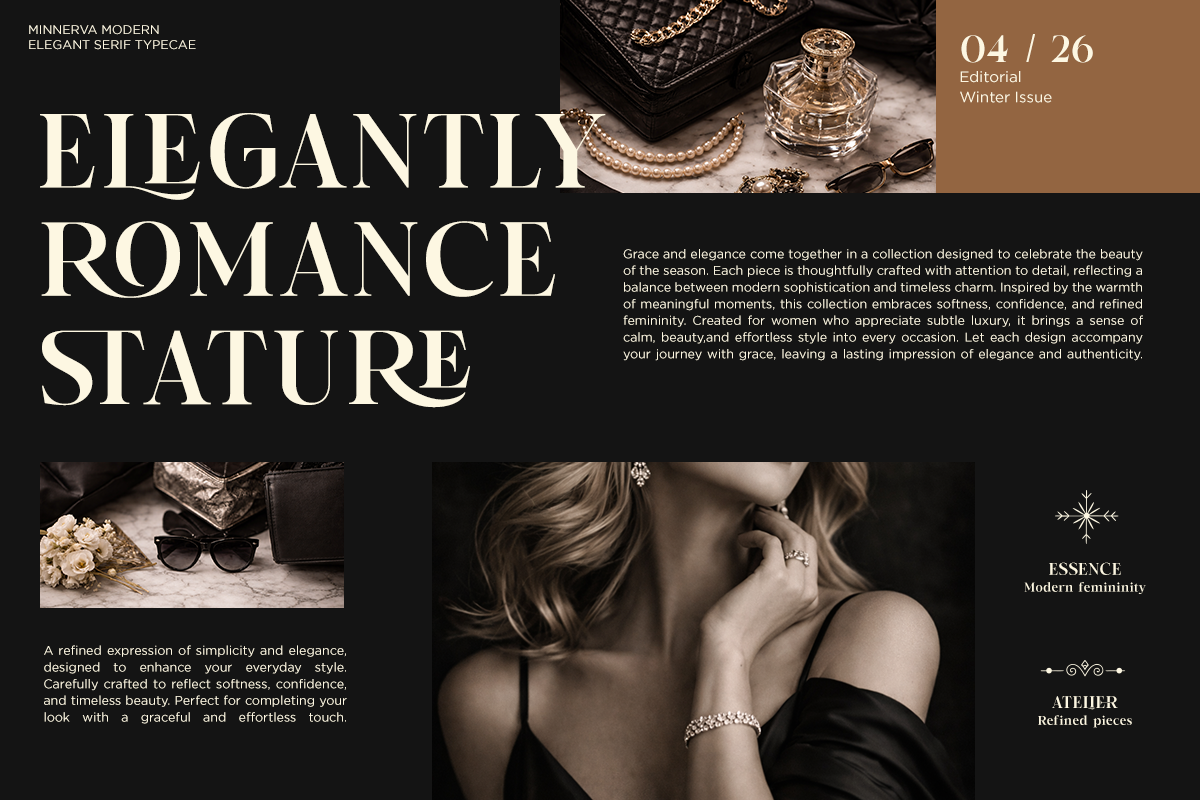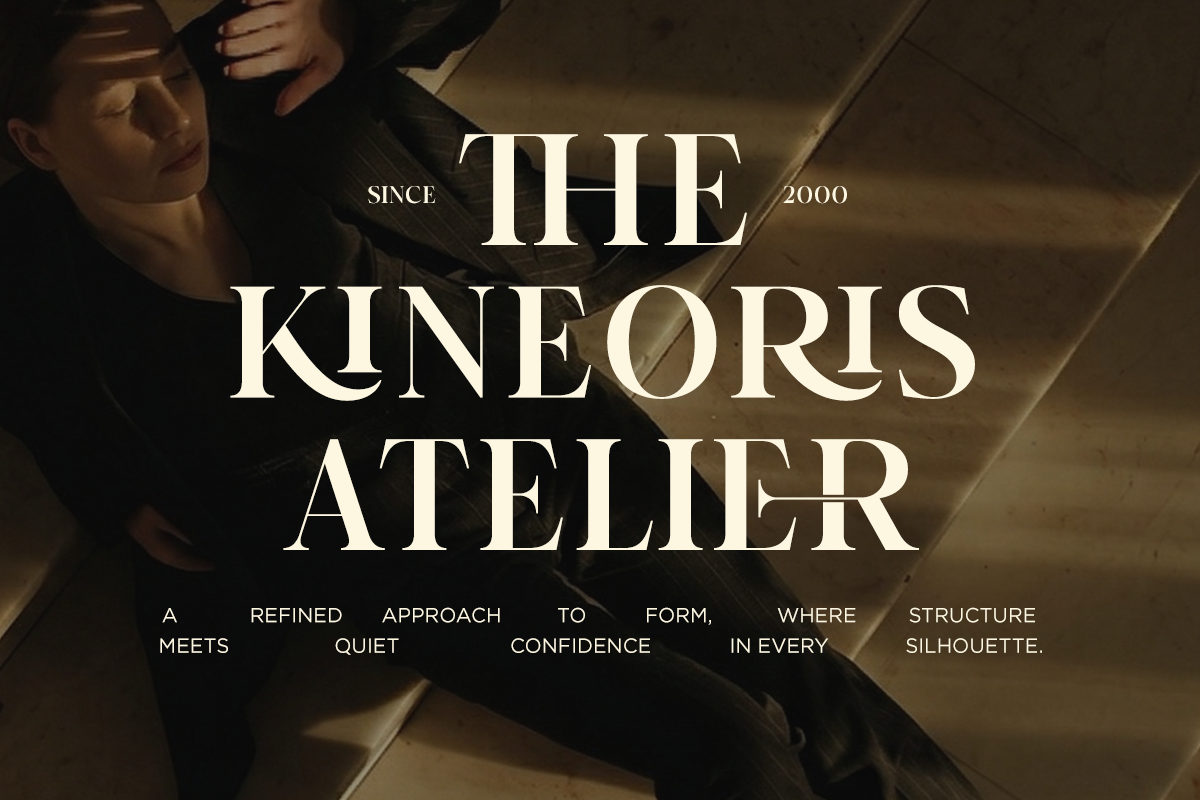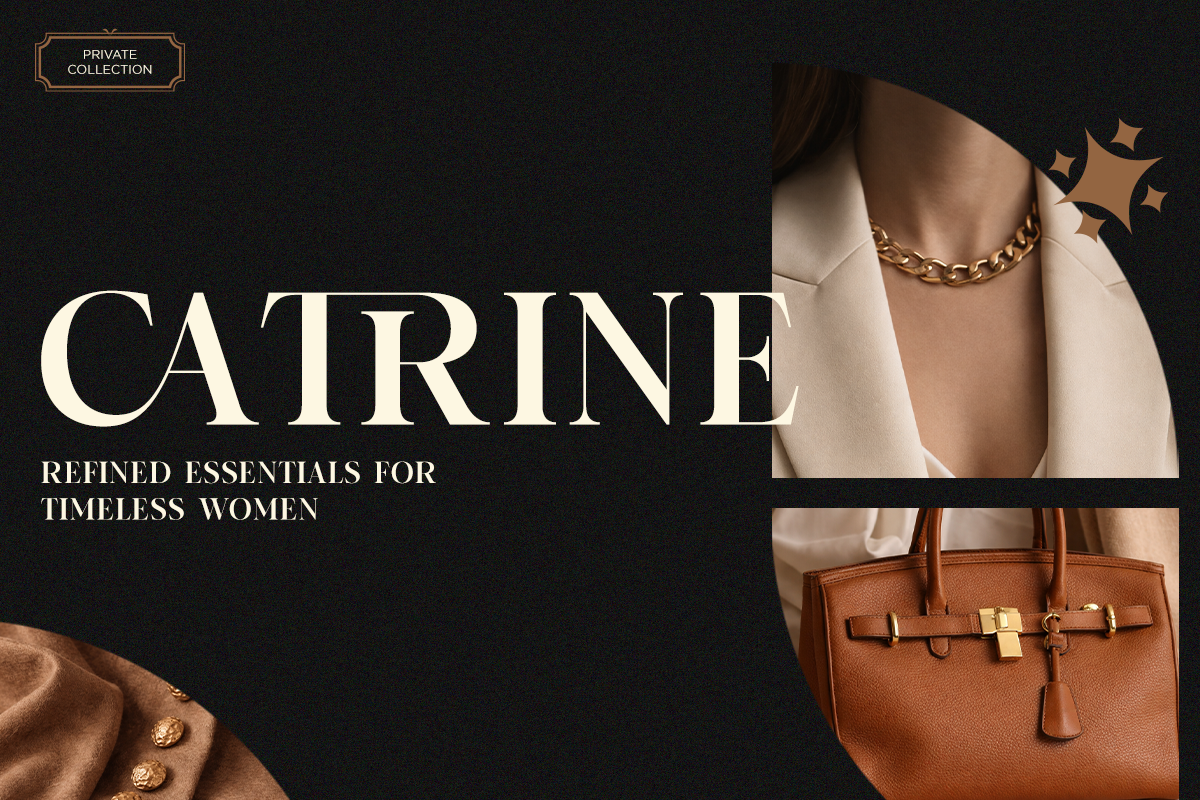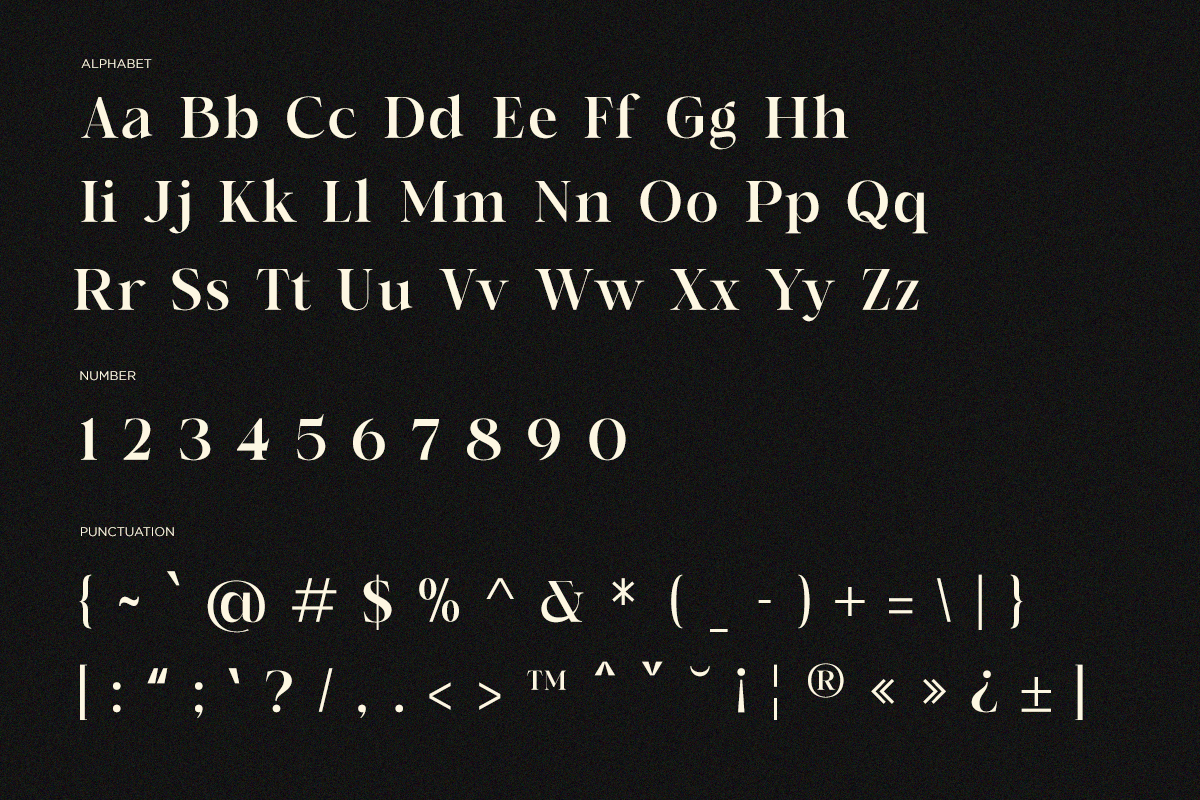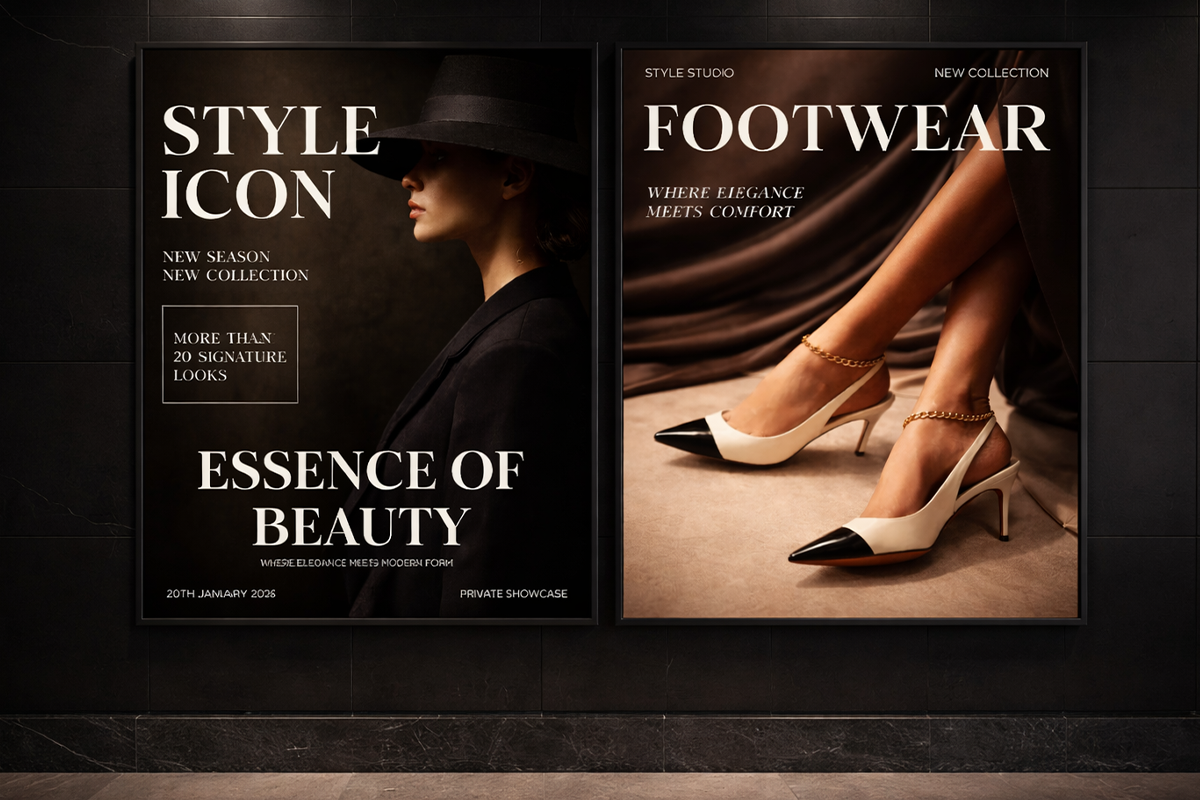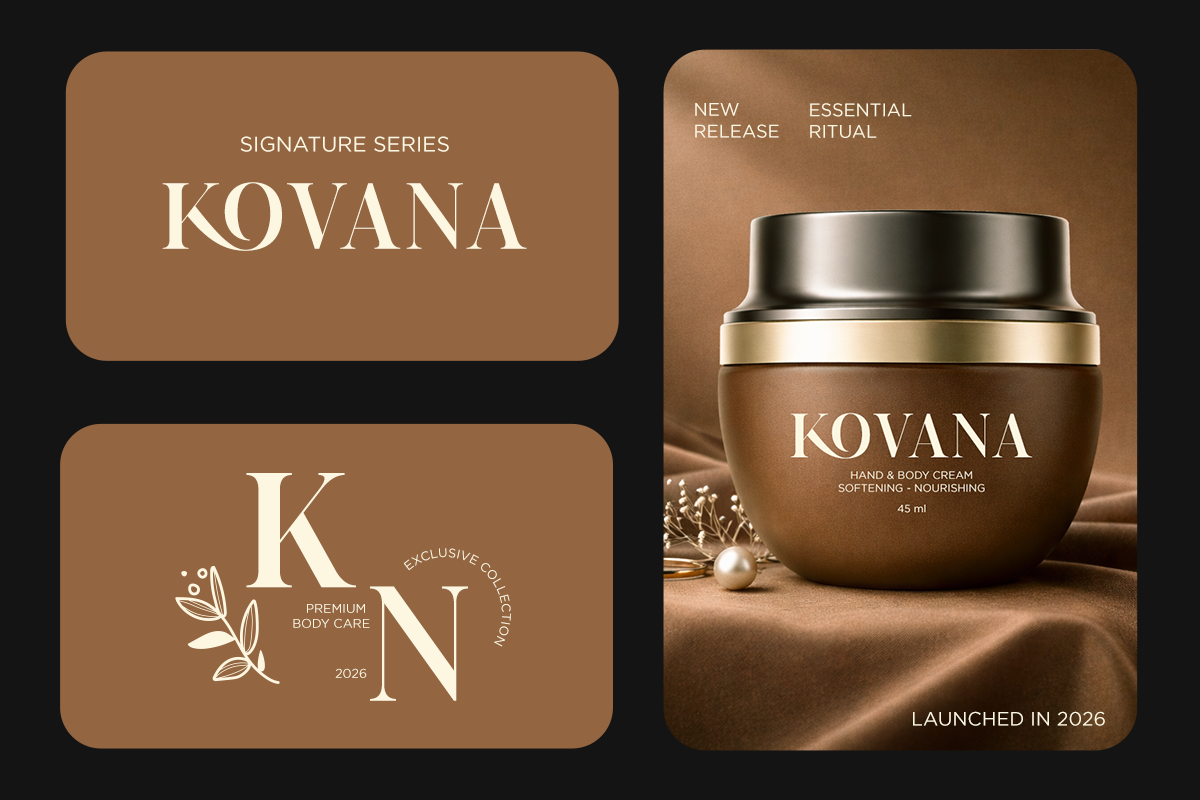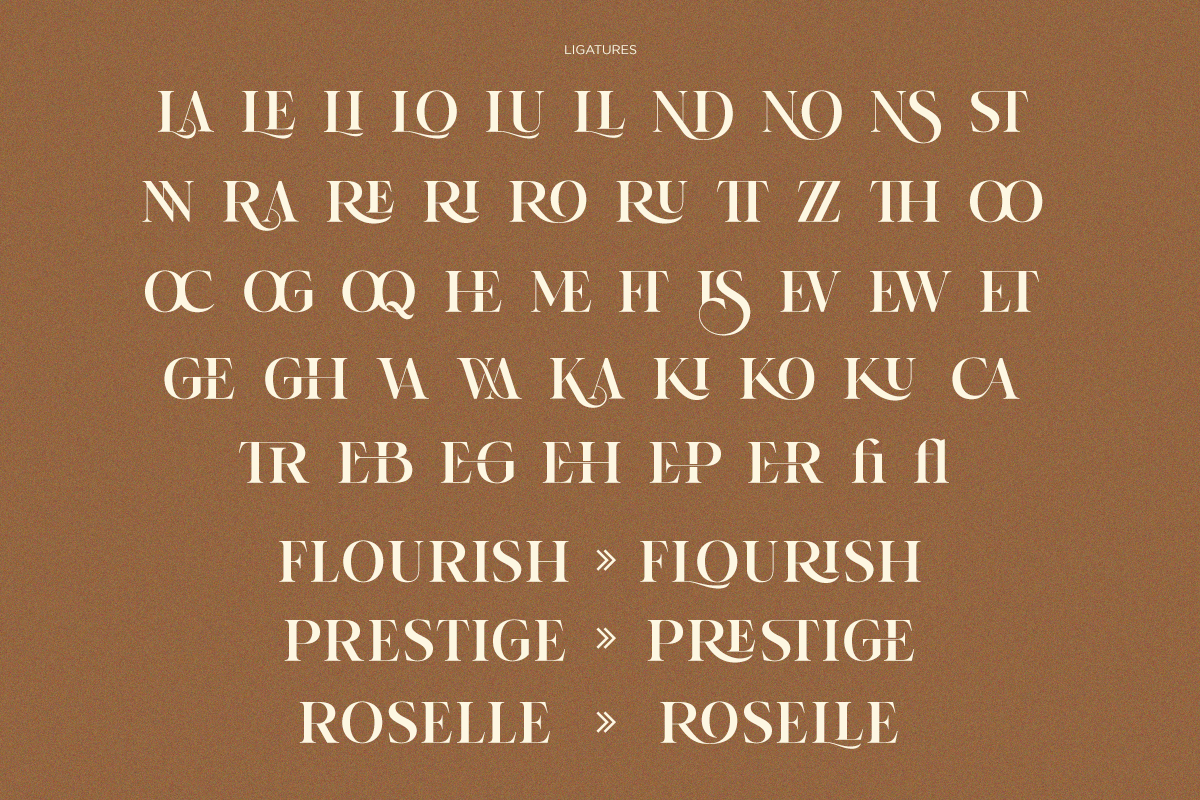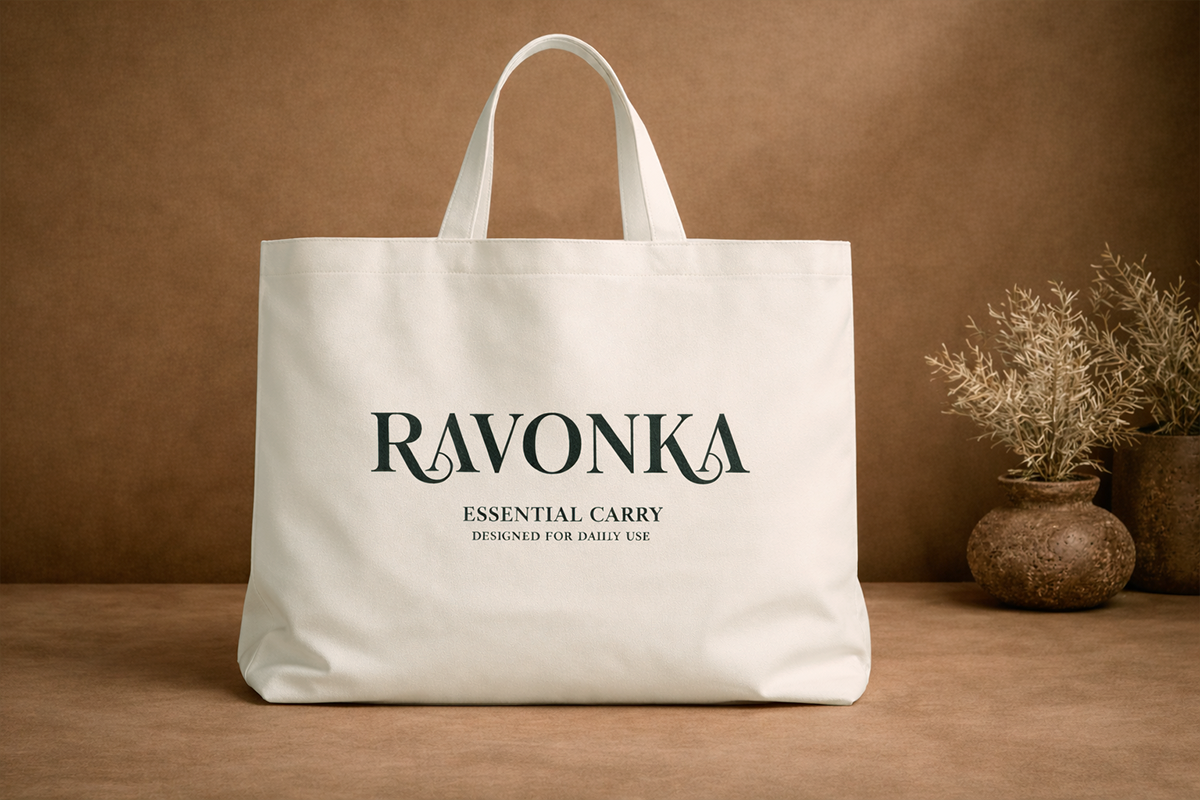
RK Minnerva - Modern Elegant Serif
RK Minnerva is a modern elegant serif typeface designed to embody sophistication and timeless beauty. With its refined letterforms, high contrast strokes, and graceful proportions, it delivers a luxurious aesthetic that feels both classic and contemporary. Every detail is carefully crafted to create a strong yet elegant visual identity.
Enhanced with 46 refined ligatures, Minnerva offers a seamless and fluid typographic experience. These ligatures add a unique artistic touch, making each word feel more expressive and premium. The combination of precision and style makes it ideal for high-end branding, editorial layouts, and fashion-driven designs.
Perfect for luxury branding, magazines, logos, and premium packaging, Minnerva brings elegance to every project. With multilingual support and versatile styling options, it adapts effortlessly across global design needs while maintaining its distinctive, sophisticated character.